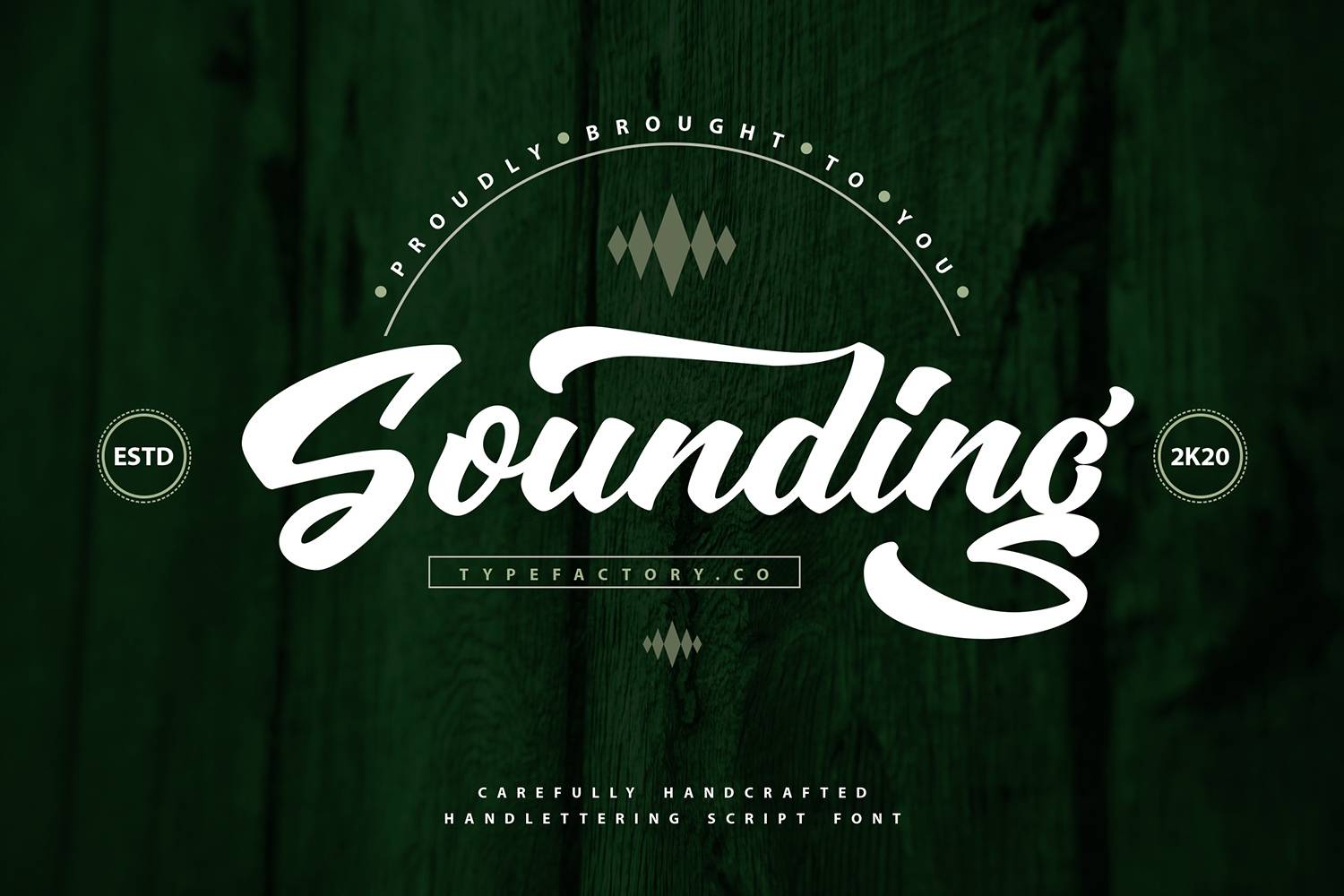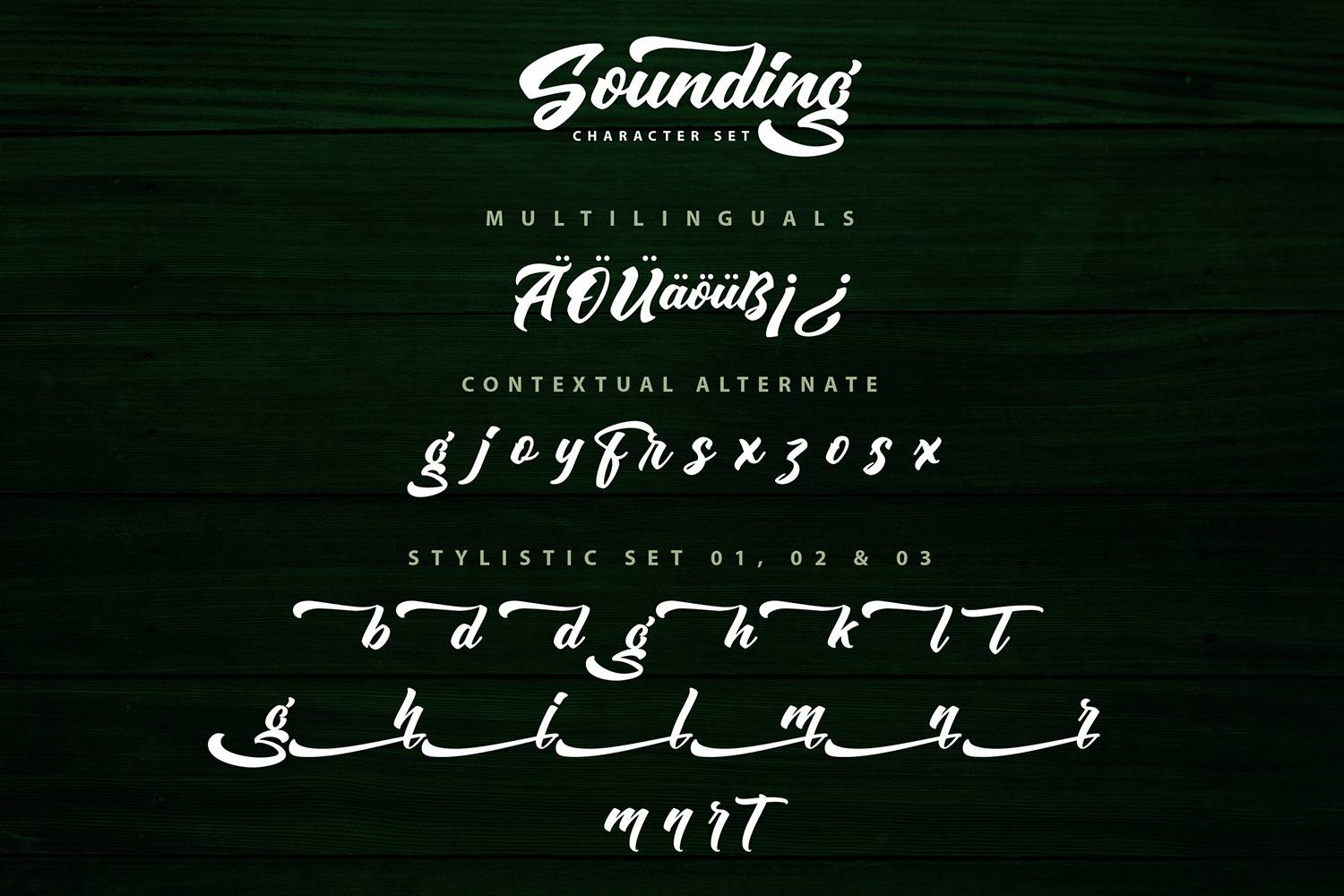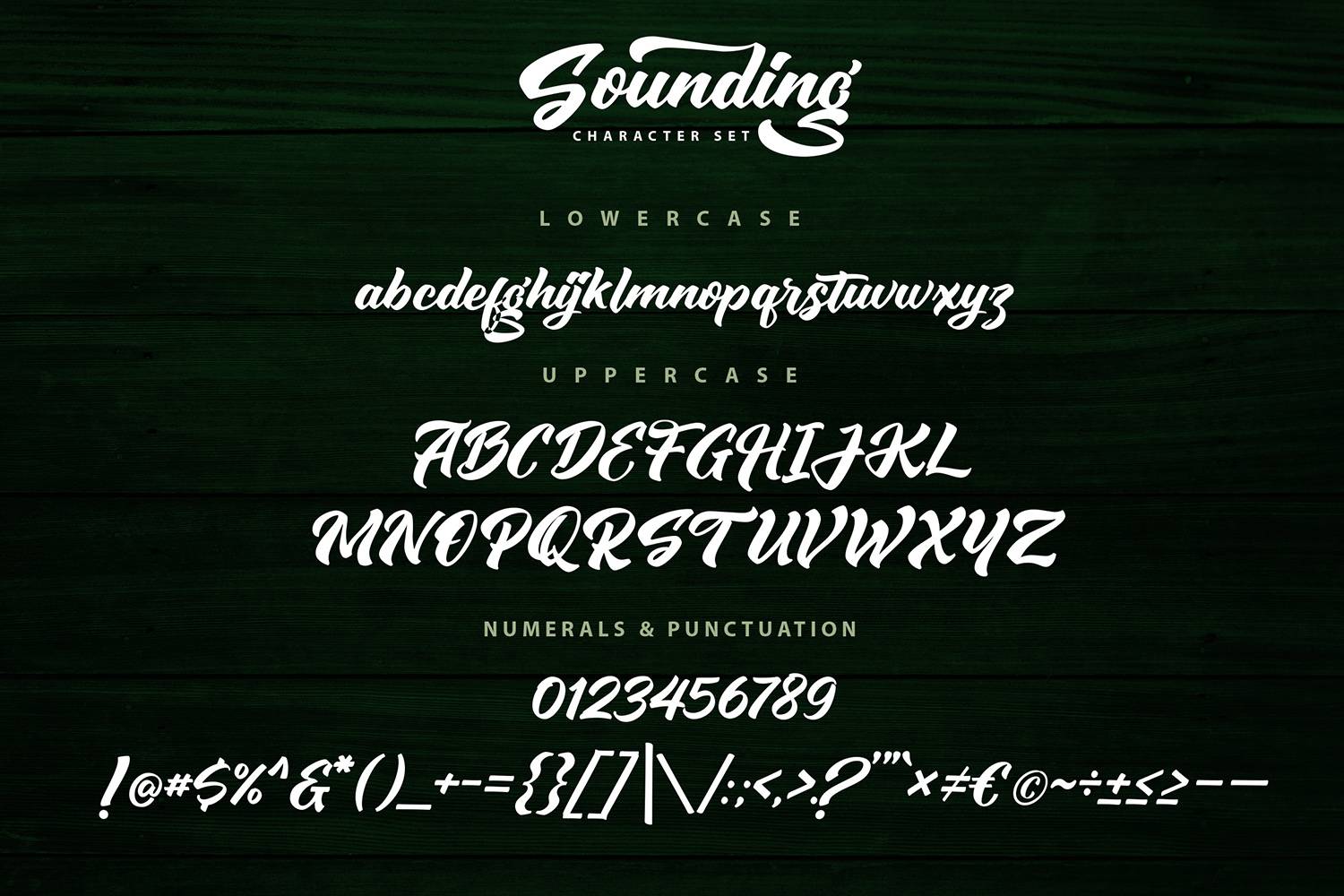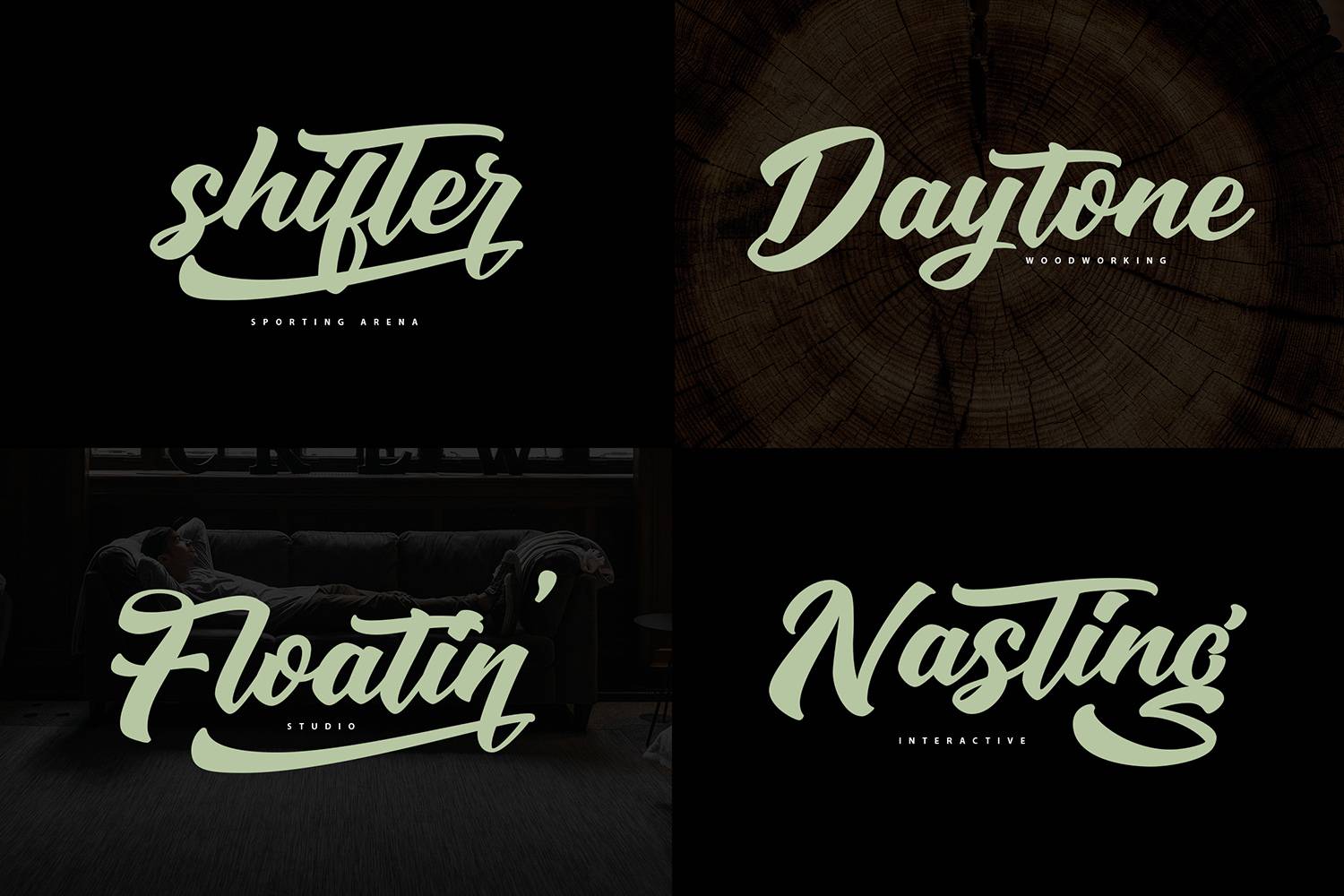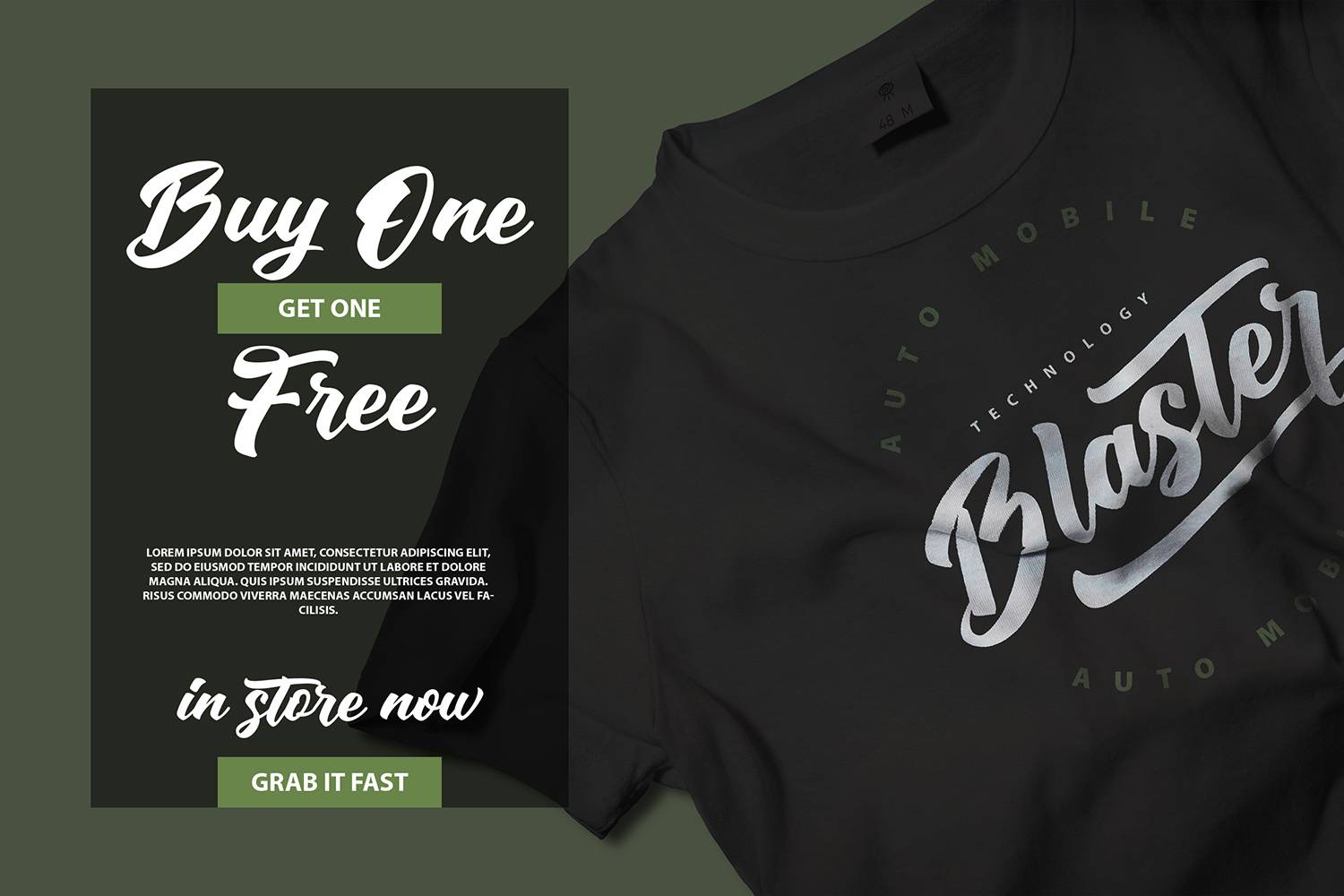
Sounding Script is a bold, expressive script font with a lively, hand-drawn feel, characterized by its smooth, flowing strokes and slightly condensed letterforms. Its dynamic style exudes energy and personality, making it perfect for creative branding, invitations, and eye-catching headlines where a personal, artistic touch is desired.
Sounding Font
About Sounding Font
| Font family | Sounding Font |
| Designer | Typefactory.co |